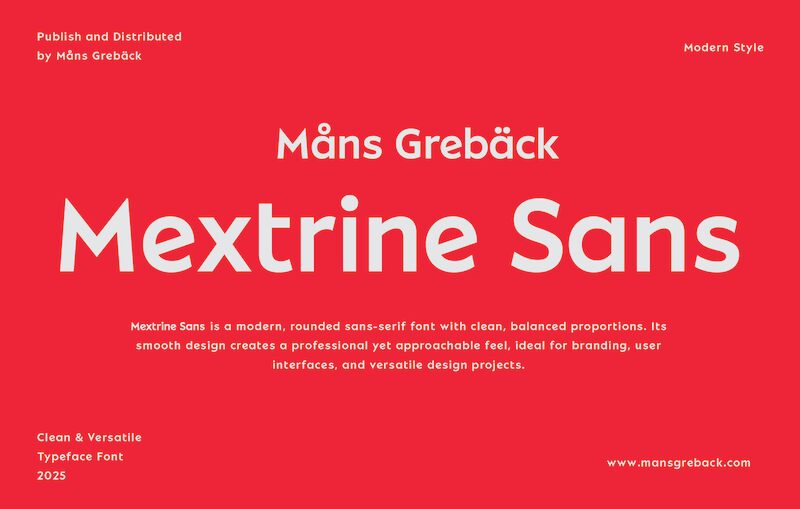
Mextrine Sans font by Mans Greback is a modern free sans-serif font with a clean appearance and a geometric structure. Its reduced decorative elements, geometric shapes, and balanced width give it a simple yet expressive structure. Soft contours additionally give it a friendly feel which can reach different audiences.
Versatile by nature, Mextrine Sans works in magazines, editorials, websites, posters, banners, signage systems, mobile apps and much more! The font also works in branding visuals like logos or headlines for forward-thinking companies.